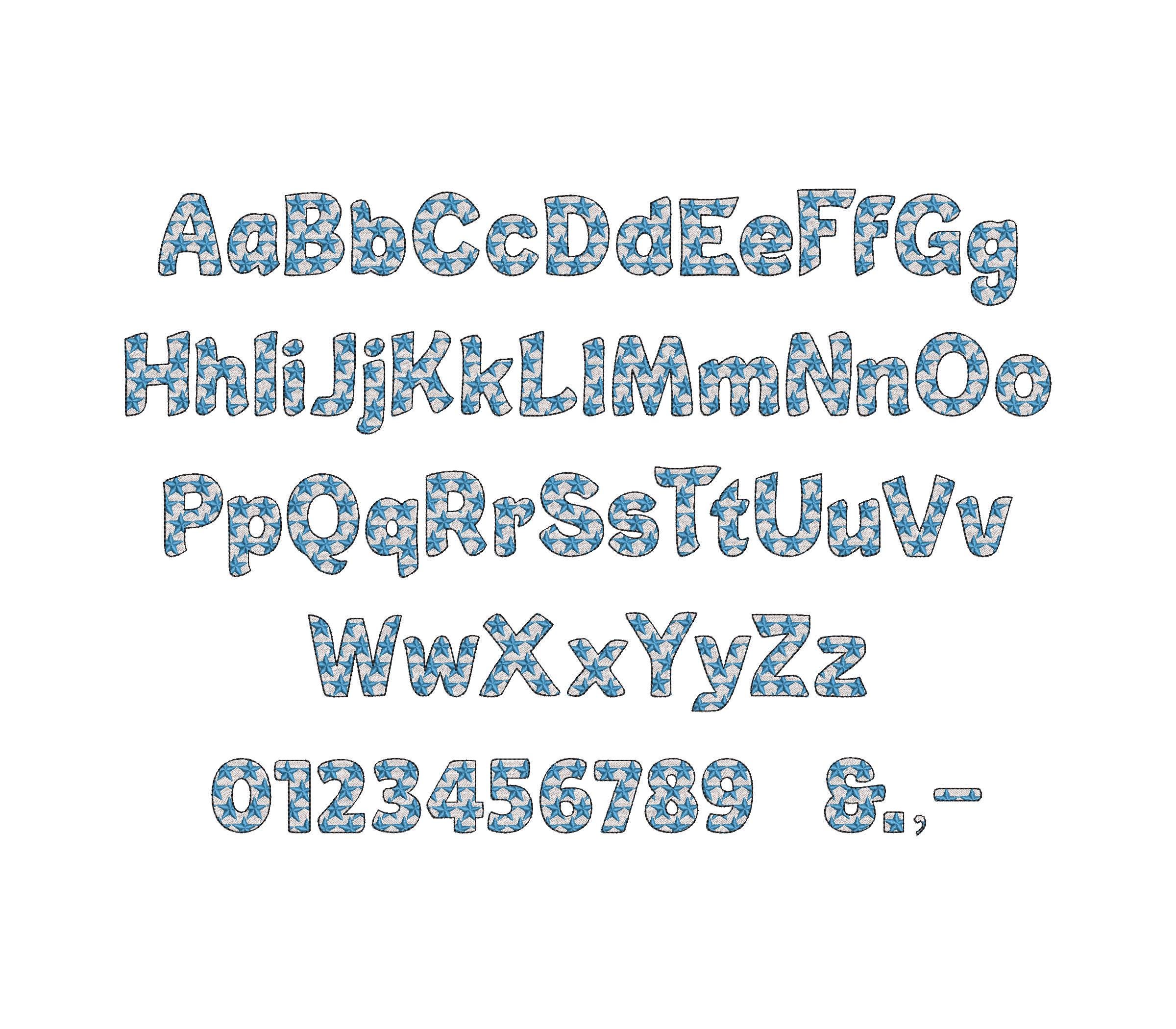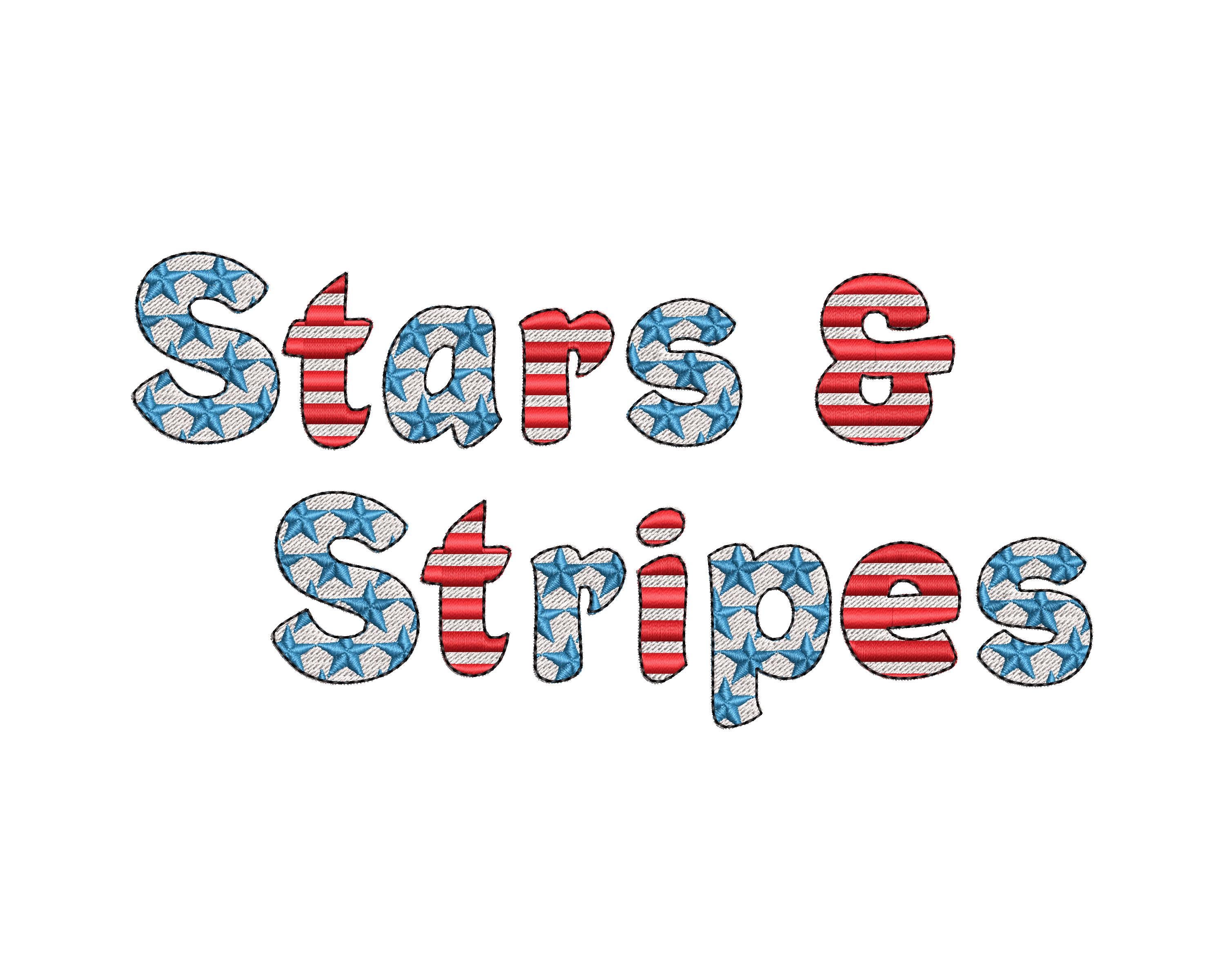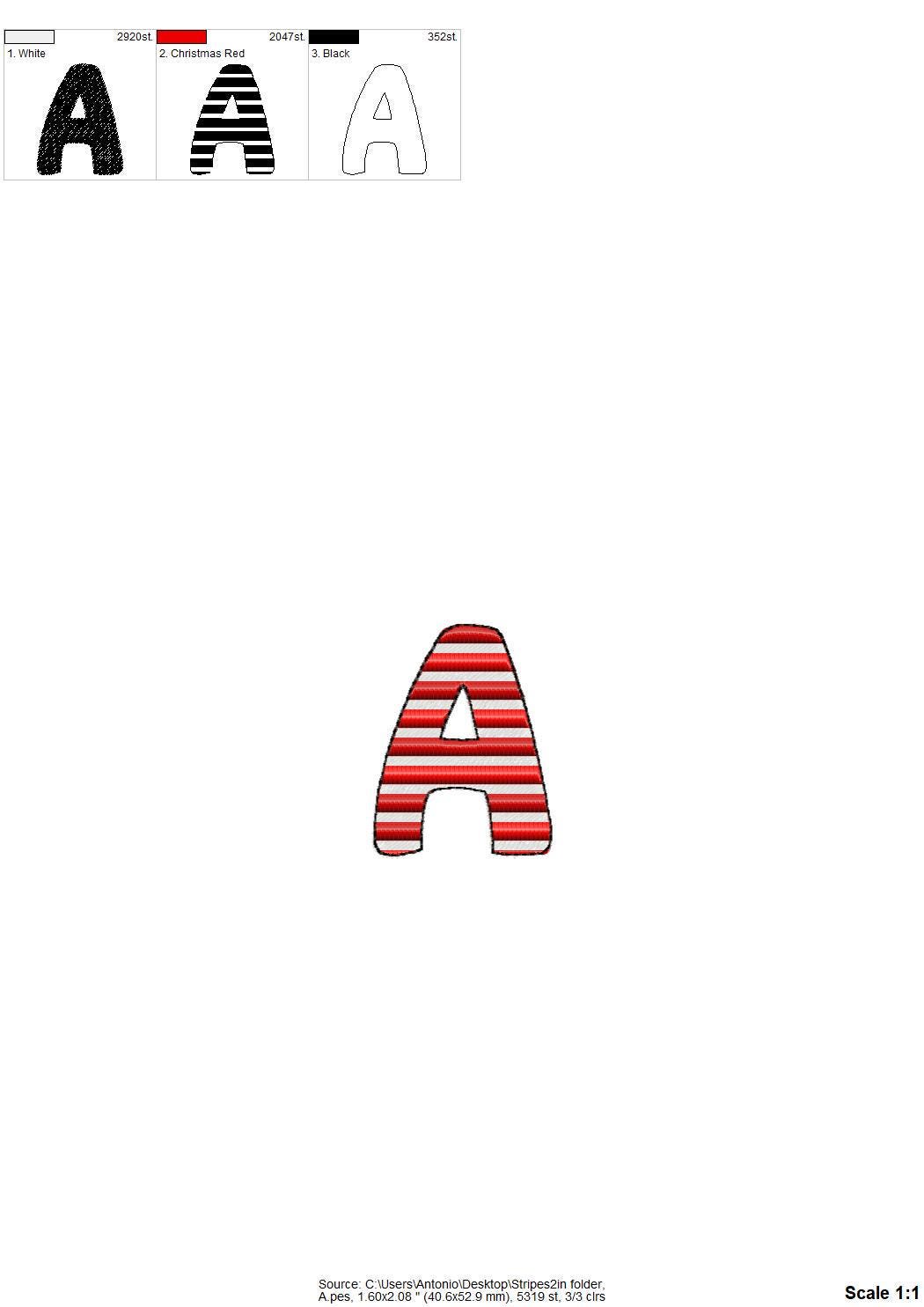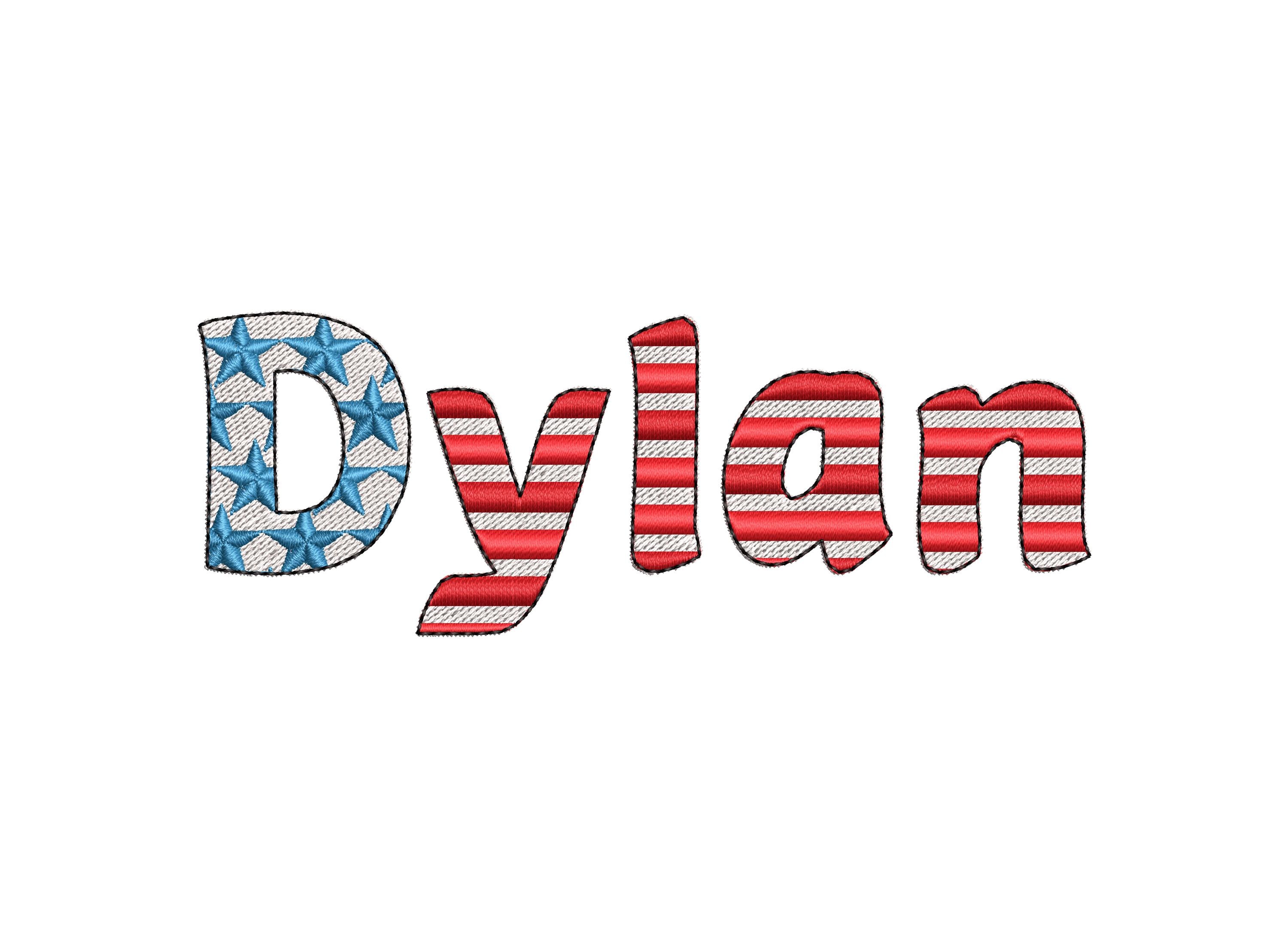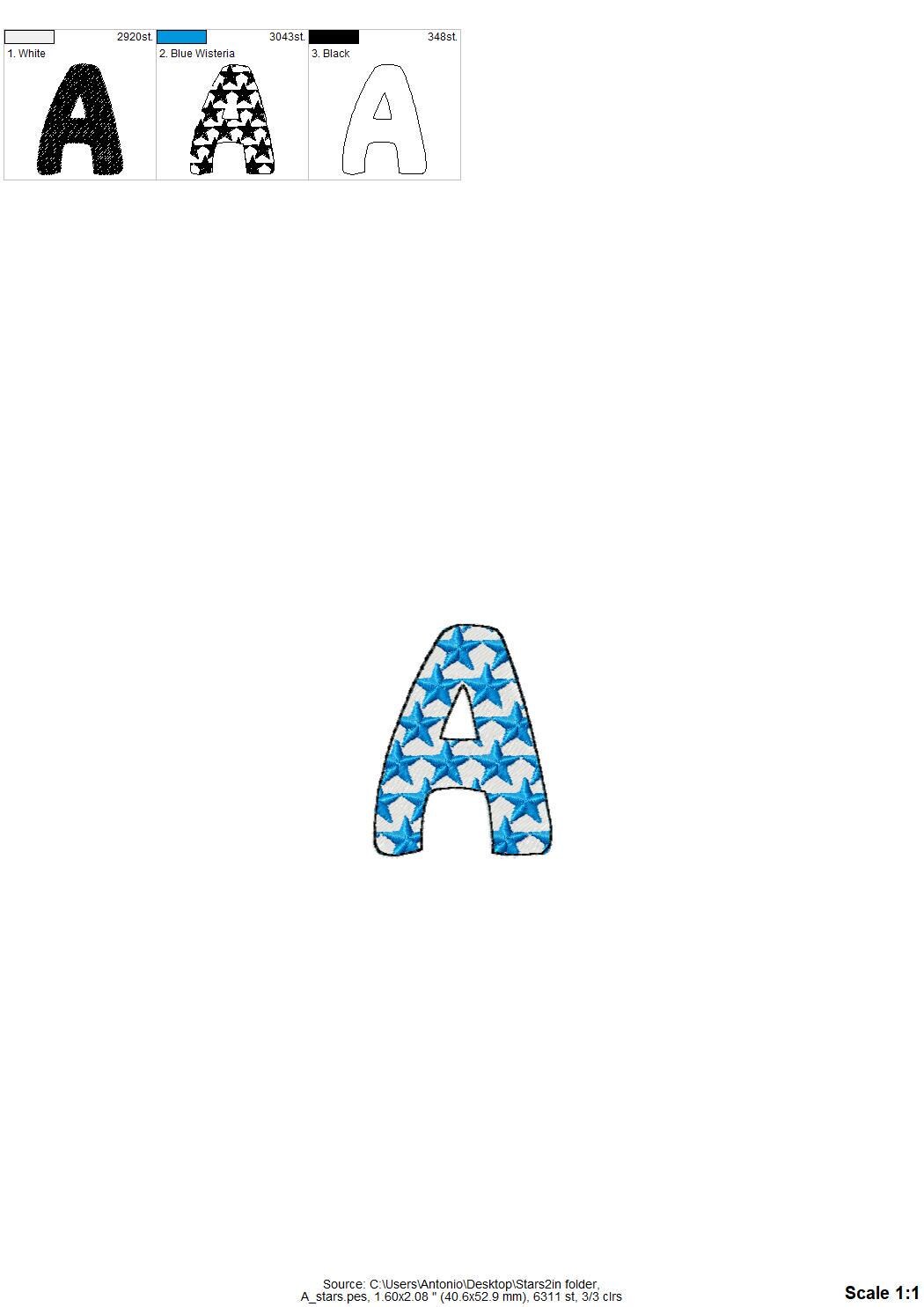
Stars and Stripes Patriotic Font SET of 2 alphabet fill stitch Monogram letters machine embroidery designs assorted sizes 4th of July
Included 2 fonts in matching sizes.
Each alphabet contains uppercase and lowercase letters, numbers, and punctuation.